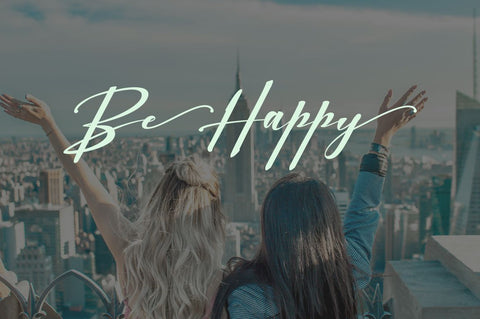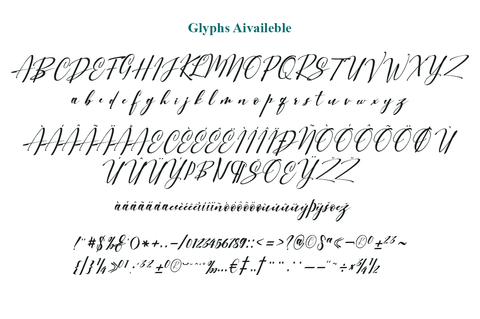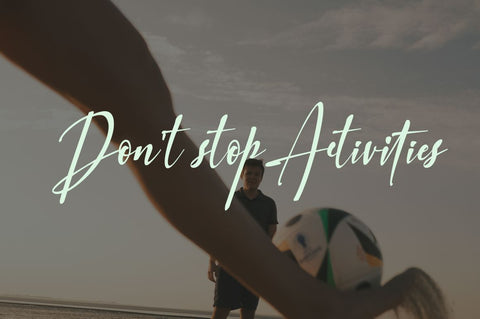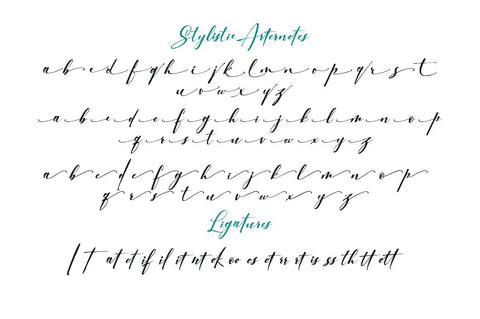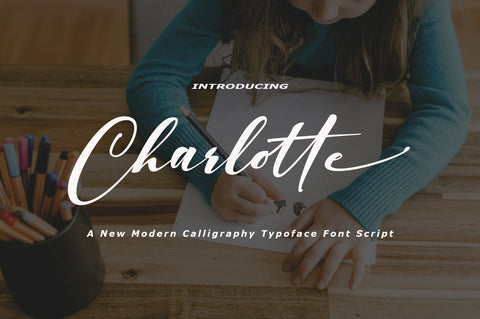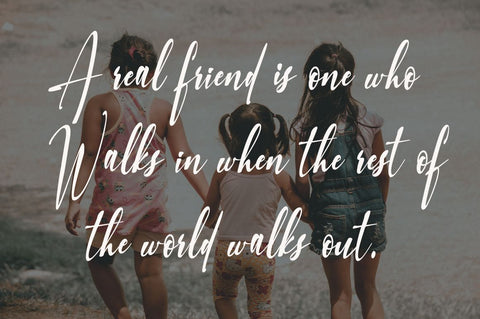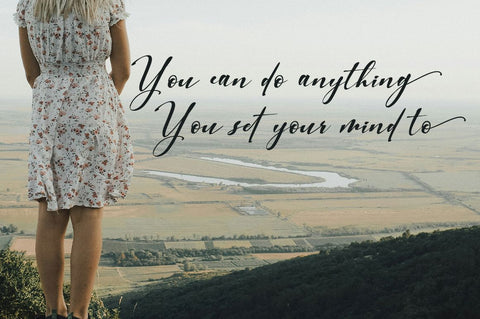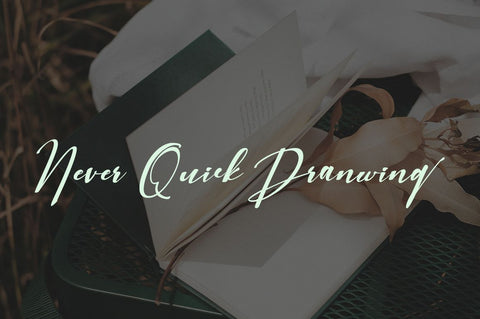
Charlotte
Charlotte is an elegant calligraphy and natural Font.
Charlotte Modern Calligraphy is perfect for wedding designs, shared moments, branding projects, logos, social media posts, advertisements, product packaging, product design, labels, photography, watermarks, invitations, stationery, and any project that requires a handwritten feel.
A font that made the hand by having the character up and down like a dancer. Charlotte has a very unique style of calligraphy, it is very suitable for use in the work of modern design.